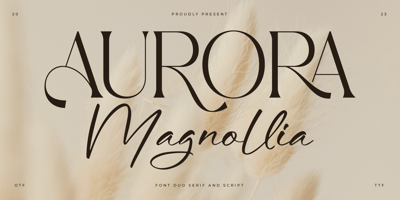
Aurora Magnollia Script
Aurora Magnollia Script font
Aurora Magnollia Script Font Family was designed by Heru Utama Putra and published by Letterena Studios. Aurora Magnollia Script contains 2 styles and family package options. Aurora Magnolia Font Duo is a charming pair of fonts that combines the classic touch of serifs with the artistic flow of a script. This duo offers versatility and style for your projects, whether you’re aiming for a traditional or modern look. With its elegant serifs and graceful script, Aurora Magnolia adds a touch of sophistication to any design. Perfect for a variety of creative endeavors, this font duo brings a timeless and refined feel to your typography.